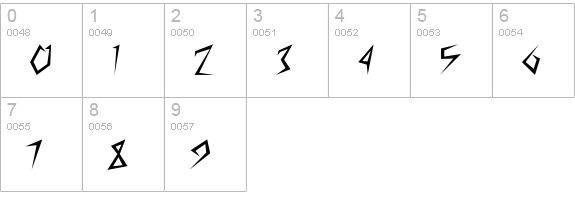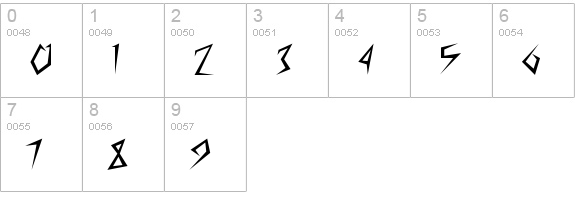
Toothpix SSi Font Details
Toothpix SSi font is a stunning typeface that is sure to make your designs stand out. With its playful and whimsical appearance, this font is perfect for adding a touch of fun and creativity to any project. Whether you're designing a poster, logo, or website, Toothpix SSi will bring a smile to your audience's faces. What sets Toothpix SSi apart is its versatility. It can be used for both headlines and body text, making it a great choice for all your design needs. The clean and legible letterforms ensure readability, while the unique and quirky details add a touch of personality. But what makes Toothpix SSi even more special is that it is available for free! That's right, you can freely download this amazing font at FontsMarket.com. No need to worry about breaking the bank, Toothpix SSi allows you to add a high-quality and eye-catching font to your collection without spending a dime. So why wait? Download Toothpix SSi today and let your creativity soar. Whether you're working on a personal project or a professional endeavor, this font will add a playful and engaging element to your designs. Don't miss out on this fantastic opportunity to enhance your typographic arsenal with a free font that is sure to impress. Get Toothpix SSi now at FontsMarket.com and start creating stunning designs that capture attention and leave a lasting impression.